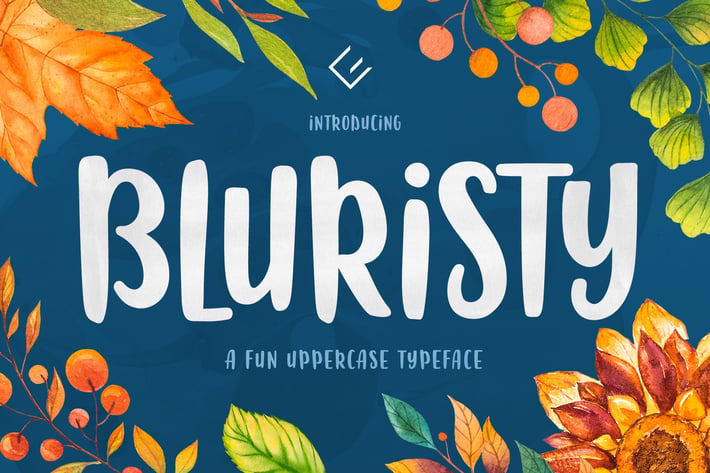
Bluristy - Brush Font
Bluristy was mainly designed for headlines so it you can use it to drive attention to your quirky designs. It's perfect for posters, menus and even logos!
Quirky Uppercase Letters
4 Styles (Regular, Italic, Rough, Rough Italic)